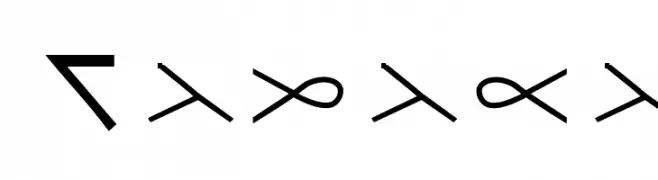
( Tadaca is a very original font. All this typography is based on latin letters, but i wanted to make them easier, even if some of them are designed according to what they make me feel. I'm 15 years old and it s my first one, i worked hard on it ! Enjoy ! )
The image does not depict a valid or recognizable font.